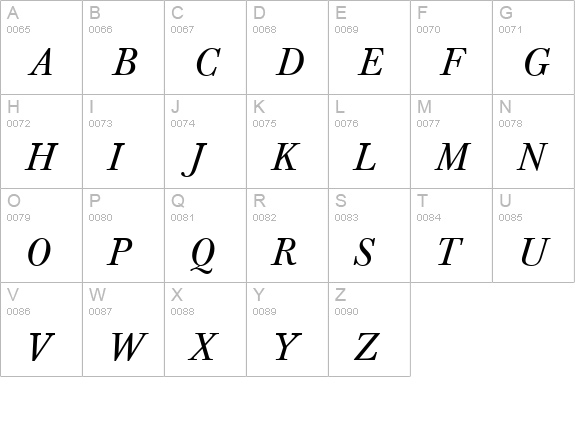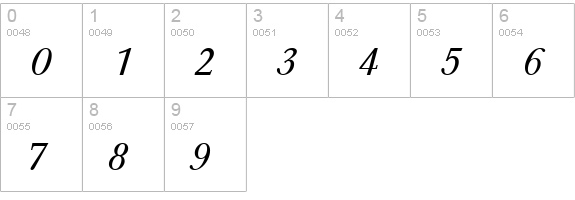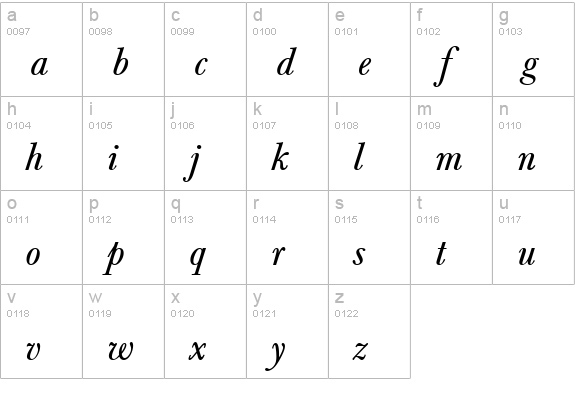
BaskervilleT Italic is a distinctive, italic variant in the BaskervilleT typeface family \xE2\x80\x94 well suited to design and typography projects.
BaskervilleT Italic font exudes elegance and sophistication with its distinctive slanted design. The italicized variation of the timeless Baskerville typeface adds a touch of flair and style to any project, making it ideal for conveying a sense of classic beauty and refinement. Whether used for headings, quotes, or body text, BaskervilleT Italic brings a touch of luxury to your designs. Best of all, this exquisite font is available for free download at FontsMarket.com. Embrace the beauty and versatility of BaskervilleT Italic in your next project and elevate your design to new levels of sophistication.